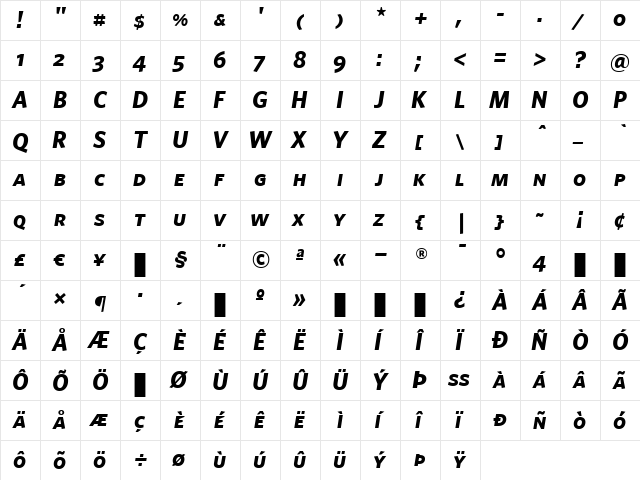
Whitney Bold Italic
Design Context for Whitney Typeface
Whitney is a composed and adaptable typeface that performs quietly and consistently across a wide range of design contexts. Its italic angle brings a sense of urgency and motion to the letterforms. The heavy weight commands attention and anchors typographic hierarchies.
Pro Tip: Try Whitney for annotation and caption copy alongside an upright companion — the contrast in angle creates a dynamic but ordered typographic system.